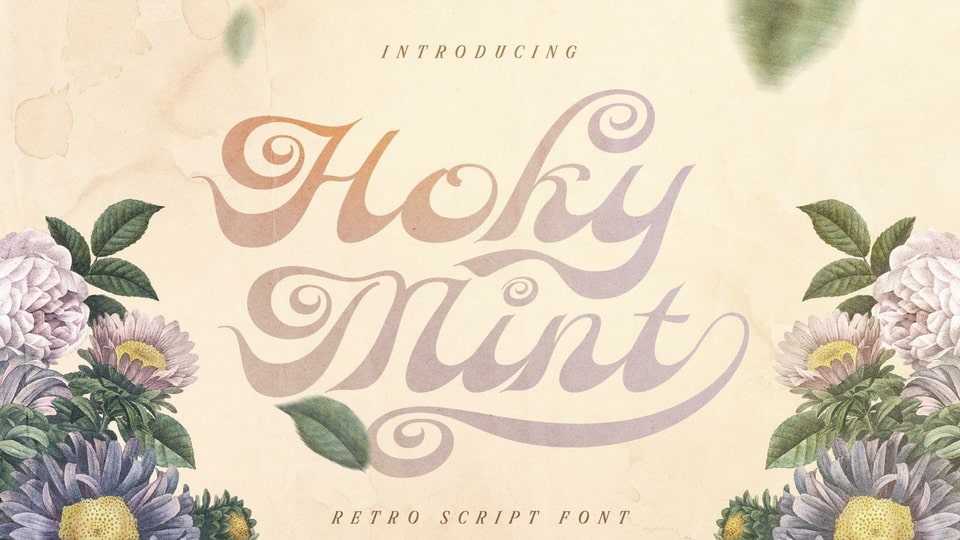
Download Hoky Mint font, a display typeface inspired by the design styles of the 70s. Hoky Min font is funny, groovy, classic, not serious but has aesthetic and unique value, besides that the it is very easy to remember and becomes the image of a design.